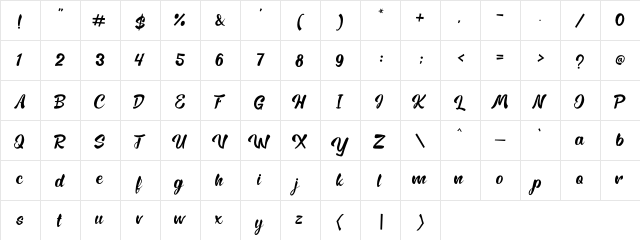
Rembow Regular
| Designer | Doli Anggia Harahap |
Design Context for Rembow Typeface
Rembow is a composed and adaptable typeface that performs quietly and consistently across a wide range of design contexts.